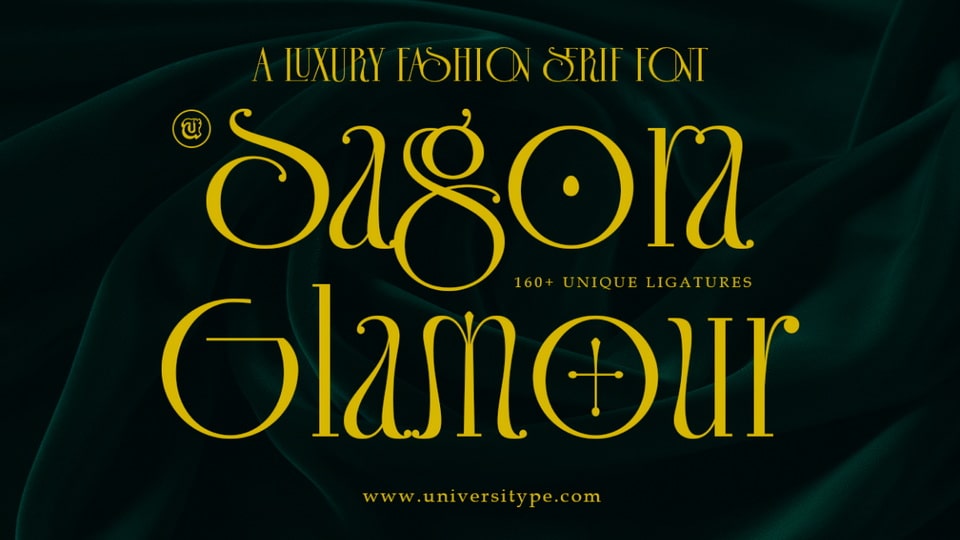
UT Sagora Glamour Font › Fontesk – Download Grátis
Download Sagora Glamour font, a condensed sans-serif typeface blending timeless elegance with modern sophistication. Perfect for fashion branding, luxury lifestyle campaigns, editorial designs, and more.
Designer: Universitype Foundry